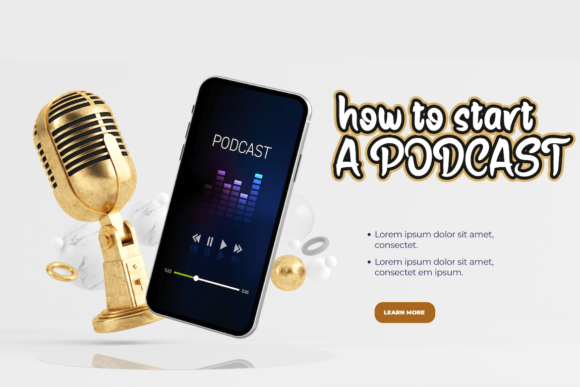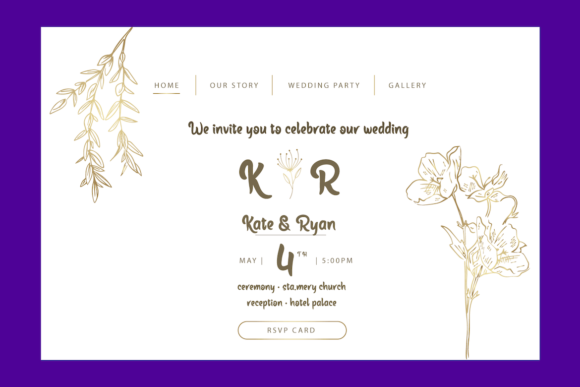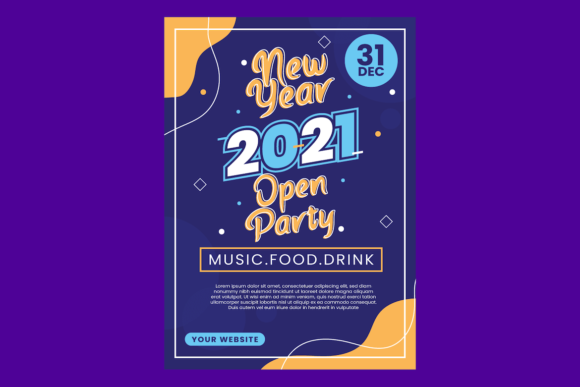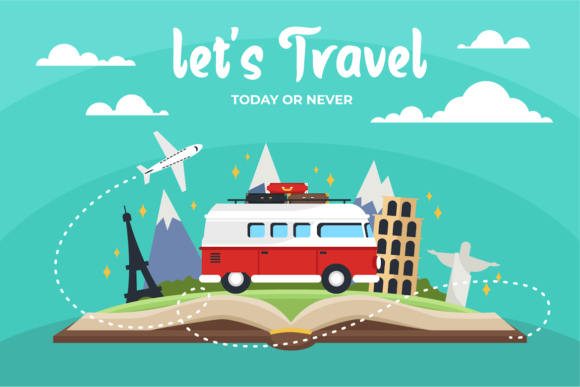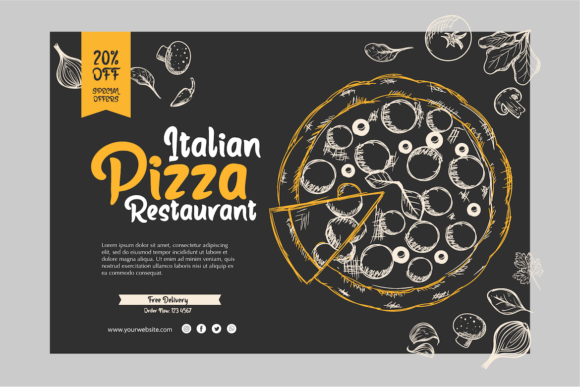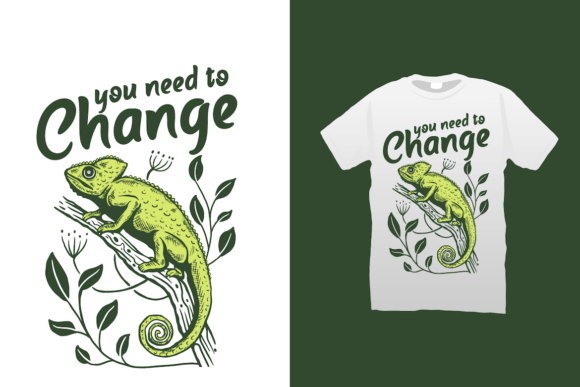
Aching Font: The Perfect Addition to Your Design Projects
Are you looking for a font that can add a touch of youth and joy to your design projects? Look no further than Aching Font, a chic and trendy paint brushed handwritten font. With its unique and playful style, Aching Font is perfect for party invitations, swimming gatherings, and any other design that requires a dash of fun and personality.
What is Aching Font?
Aching Font is a type of handwritten font that mimics the look of paint brushed letters. It’s a unique and creative way to add a personal touch to your designs. The font is carefully crafted to resemble the imperfect and playful strokes of a paintbrush, giving it a charming and whimsical feel.
Features of Aching Font
- Chic and Trendy: Aching Font is a modern and stylish font that’s perfect for designers who want to add a touch of sophistication to their work.
- Playful and Fun: The font’s playful and whimsical style makes it ideal for designs that require a dash of fun and personality.
- Handwritten: Aching Font is a handwritten font that adds a personal touch to your designs.
- Paint Brushed: The font’s paint brushed style gives it a unique and creative look.
Uses of Aching Font
Aching Font is a versatile font that can be used in a variety of design projects. Here are some ideas:
- Party Invitations: Add a touch of fun and personality to your party invitations with Aching Font.
- Swimming Gatherings: Create eye-catching posters and flyers for swimming gatherings with Aching Font.
- Social Media Graphics: Use Aching Font to create engaging and playful social media graphics.
- Logos and Branding: Aching Font can be used to create unique and memorable logos and branding materials.
Benefits of Using Aching Font
Using Aching Font in your design projects can have several benefits. Here are a few:
- Stand Out: Aching Font can help your designs stand out from the crowd with its unique and playful style.
- Emotional Connection: The font’s whimsical and charming feel can help create an emotional connection with your audience.
- Versatility: Aching Font can be used in a variety of design projects, making it a versatile addition to your font collection.
Tips for Using Aching Font
Here are some tips for using Aching Font in your design projects:
- Use it Sparingly: Aching Font is a bold and playful font, so use it sparingly to avoid overwhelming your design.
- Pair it with Other Fonts: Pair Aching Font with other fonts to create a unique and visually appealing combination.
Aching Font is a chic and trendy paint brushed handwritten font that’s perfect for designers who want to add a touch of youth and joy to their design projects. With its unique and playful style, Aching Font is ideal for party invitations, swimming gatherings, and any other design that requires a dash of fun and personality. Whether you’re a designer, crafter, or DIY enthusiast, Aching Font is a great addition to your font collection.